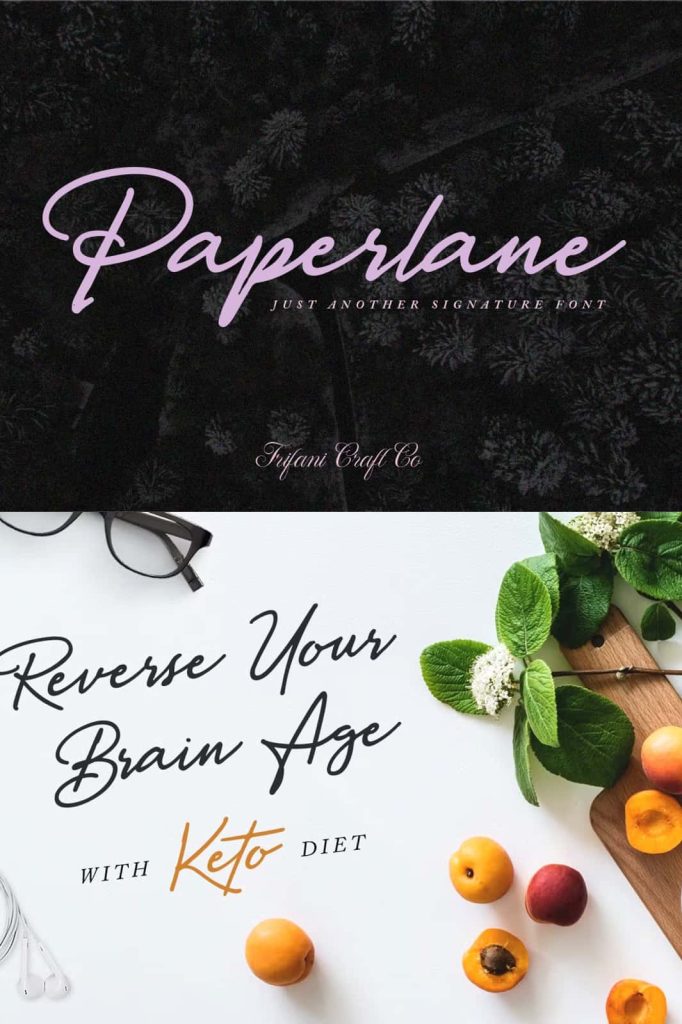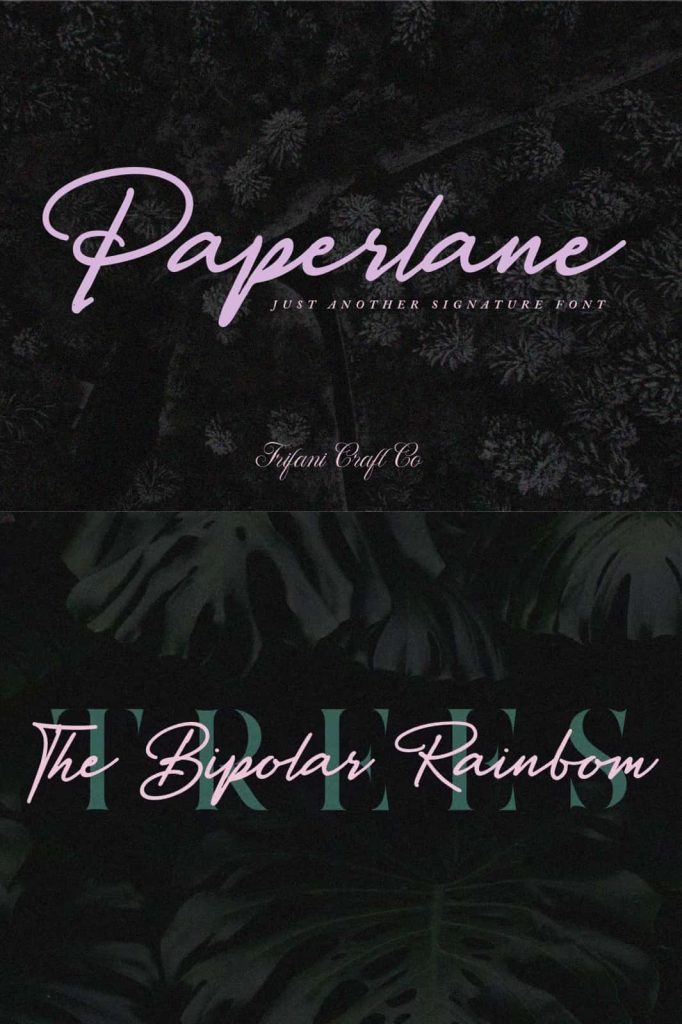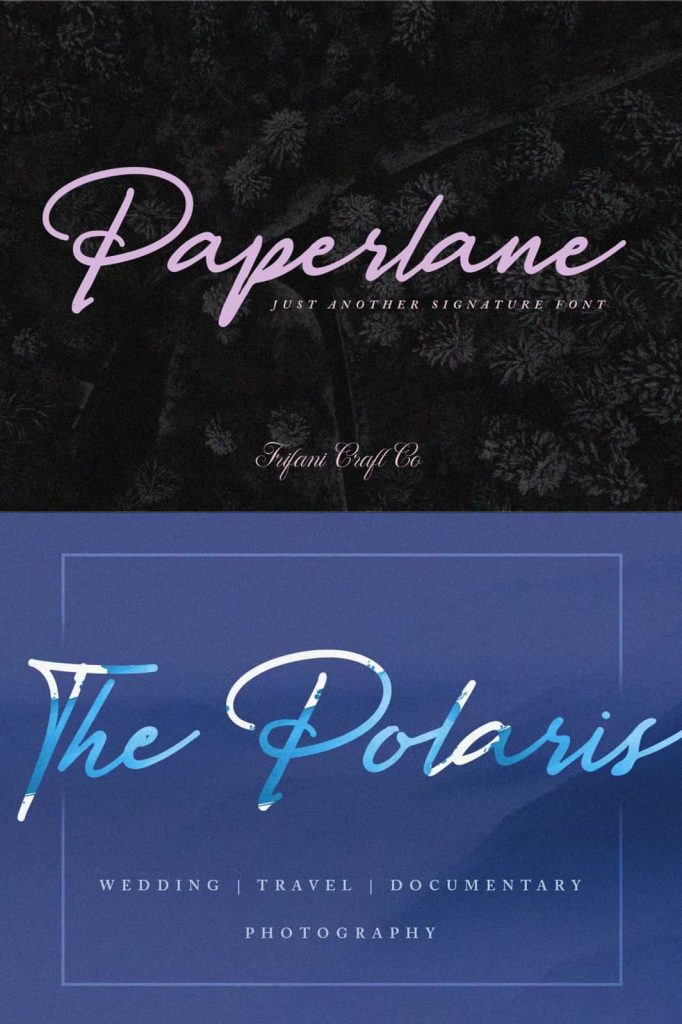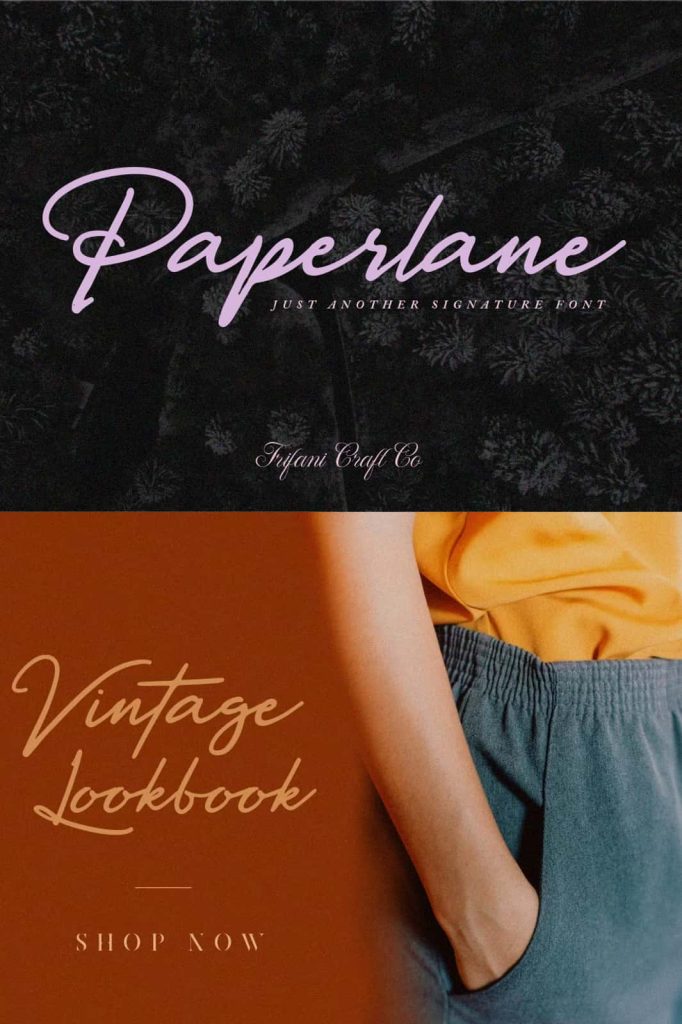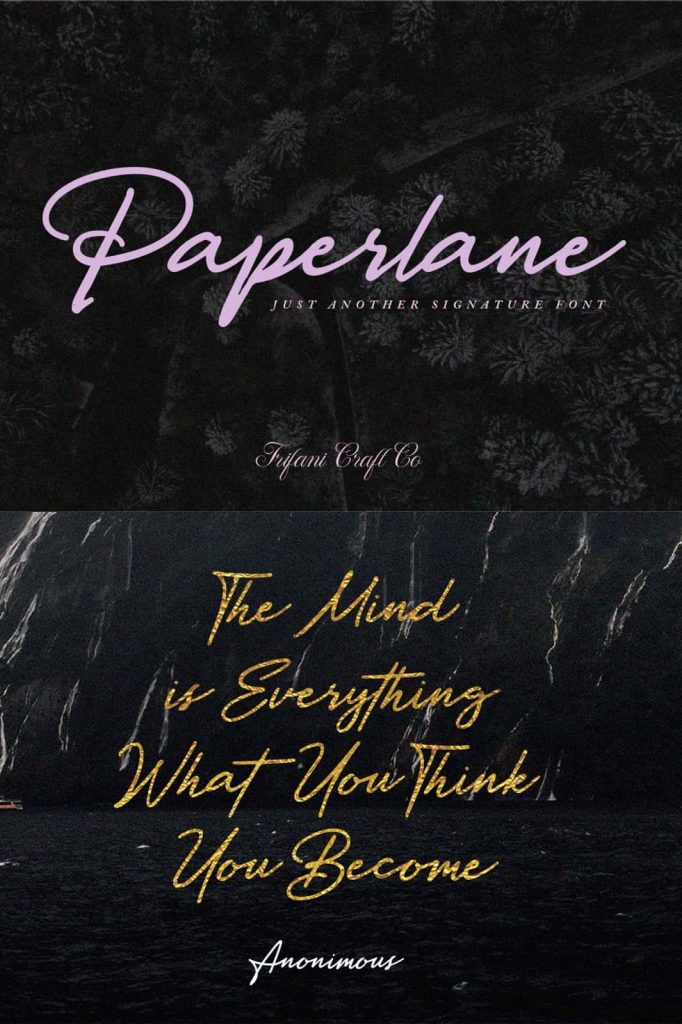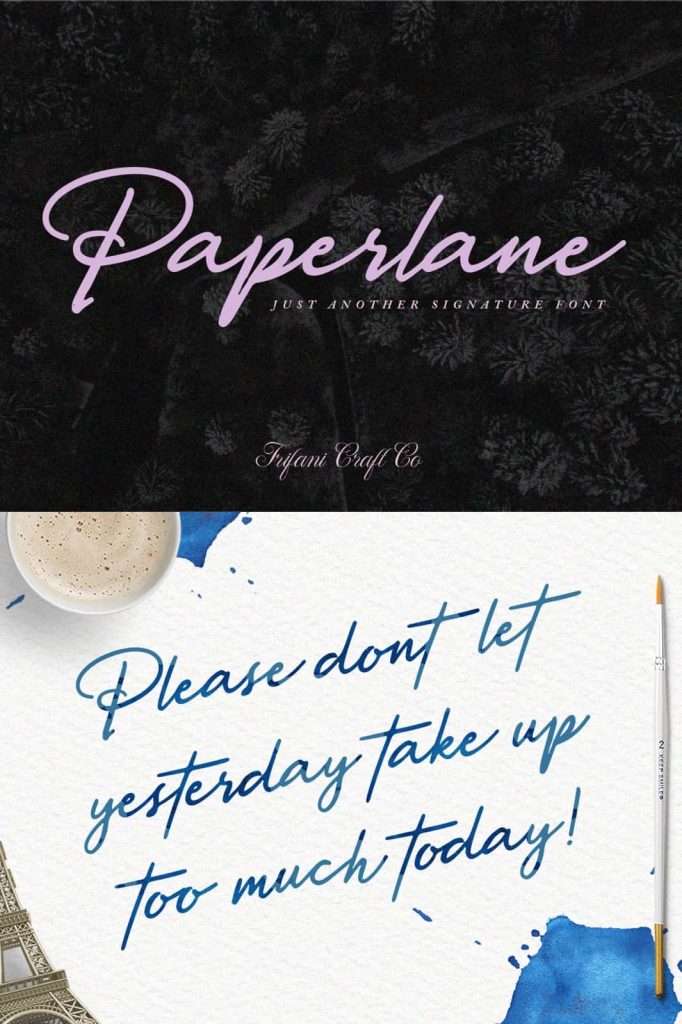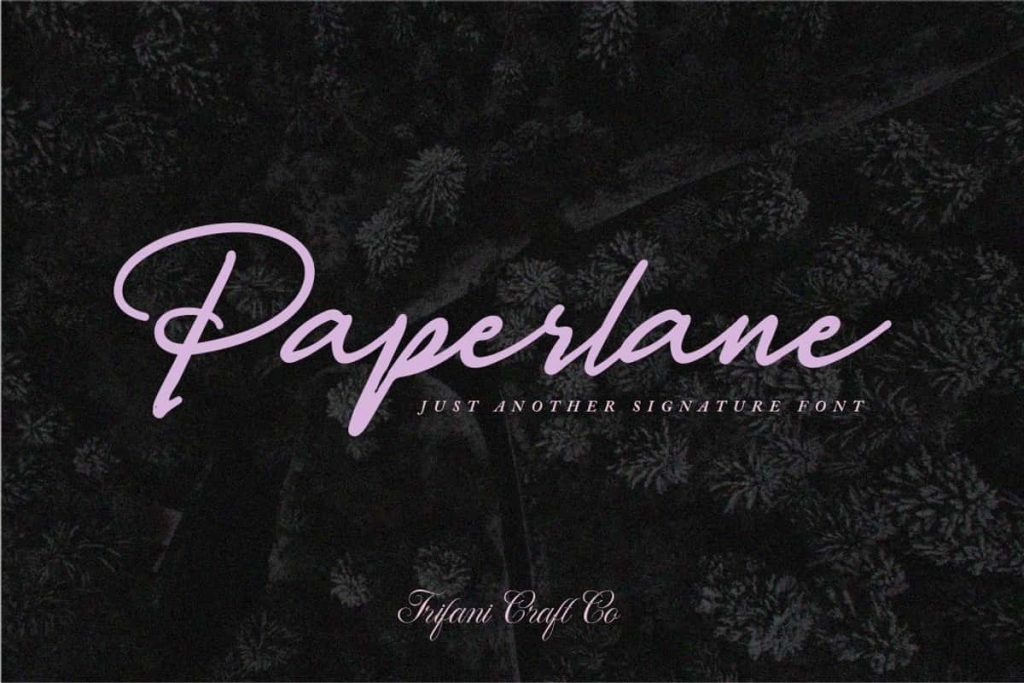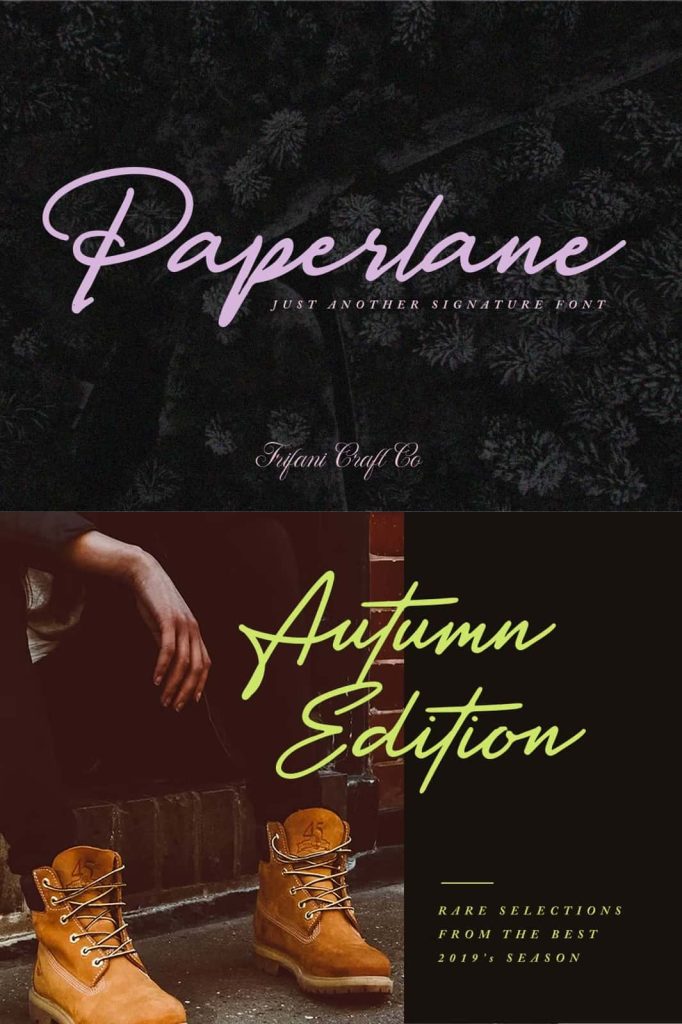
Paperlane Hand-Drawn Script Font
Paperlane is an authentic hand-drawn script font that captures the beauty and personality of natural handwriting. Designed with organic strokes and a signature-style flow, this typeface brings warmth, charm, and individuality to modern typography. Every letter reflects the subtle imperfections and expressive rhythm of handwritten text, making Paperlane an ideal choice for designers who want their work to feel personal and handcrafted.
Instead of relying on rigid digital precision, Paperlane embraces the organic movement of pen-on-paper writing. The quick dry strokes and natural letter connections recreate the feeling of genuine handwriting, allowing designers to add an intimate and creative touch to their projects. This approach makes the font feel approachable, stylish, and full of character.
An Authentic Handwritten Design
Paperlane stands out because of its authentic handwritten appearance. The font was carefully designed to replicate the natural rhythm of handwriting, preserving the subtle variations that occur when writing with a pen. These small imperfections give the letters personality and help the text feel alive.
Each character flows naturally into the next, creating smooth connections that mimic real handwritten signatures and notes. The organic shapes avoid mechanical symmetry and instead follow the natural motion of writing. This deliberate design choice allows the font to communicate warmth and authenticity in every line of text.
Designers who want typography that feels human and expressive will appreciate the handcrafted quality that Paperlane provides.
Organic Strokes with Personal Charm
The defining feature of Paperlane is its organic stroke style. The letterforms display subtle variations in thickness and movement, reflecting the pressure changes that naturally occur during handwriting. These variations create a sense of spontaneity and artistic expression.
The script maintains a relaxed flow while still remaining clear and readable. Its signature-style design gives the typeface a refined yet casual appearance, allowing it to fit comfortably into both professional and creative design environments.
This personal charm makes Paperlane an excellent option for projects that aim to connect with audiences on an emotional level.
Quick Dry Strokes that Feel Natural
Paperlane features quick dry strokes that replicate the appearance of ink drying on paper. These strokes add texture and authenticity to the lettering, making the font feel more like genuine handwriting than a digitally generated script.
The slightly imperfect edges and fluid curves enhance the handcrafted aesthetic. Instead of appearing overly polished or artificial, the font retains a natural feel that resonates with viewers who appreciate authentic design.
This attention to detail helps Paperlane stand apart from many script fonts that lack the expressive qualities of true hand lettering.
Perfect for Handwritten Quotes
Paperlane works beautifully for handwritten quotes and inspirational typography. The flowing script style creates a sense of intimacy and emotion, making messages feel more personal and meaningful.
Designers frequently use script fonts like Paperlane for social media graphics, posters, greeting cards, and digital artwork featuring motivational phrases. The organic lettering style enhances the emotional tone of the text while maintaining strong readability.
Because the font mimics authentic handwriting, it allows quotes to feel more genuine and engaging for audiences.
Ideal for Signature-Style Logos
One of the most popular uses for Paperlane is in signature-style logo design. The natural flow of the lettering resembles a handwritten signature, giving brands a sophisticated and personal visual identity.
Businesses that focus on creativity, craftsmanship, or personal service often choose script fonts like Paperlane for their branding. The font helps communicate authenticity, elegance, and individuality while maintaining a modern appearance.
Designers can easily adapt the script to create unique brand marks that feel refined yet approachable.
Great for Stylish Branding Projects
Paperlane offers excellent versatility for branding and visual identity design. Its elegant handwritten style adds personality to brand messaging while still maintaining a professional aesthetic.
The font works particularly well for lifestyle brands, boutique businesses, beauty products, fashion labels, and artisan companies. These industries often seek typography that reflects creativity and craftsmanship, making Paperlane a strong design choice.
By combining the font with clean layouts and complementary typefaces, designers can create branding systems that feel both modern and handcrafted.
Perfect for Handcrafted Products and Stationery
Paperlane also shines in product packaging and stationery design. The handwritten aesthetic fits naturally with handcrafted goods, artisanal products, and personalized stationery collections.
Designers can use the font for labels, product tags, invitations, wedding stationery, notebooks, and greeting cards. Its organic style enhances the handcrafted feel of these products and helps create a stronger emotional connection with customers.
In packaging design, the script adds a sense of authenticity that reinforces the value of handmade or boutique items.
A Script Font Designed for Creative Expression
Paperlane delivers more than just decorative lettering. It provides a versatile tool that allows designers to express personality, creativity, and authenticity through typography. The combination of organic strokes, natural flow, and signature-style elegance makes the font suitable for many design applications.
Whether used for quotes, branding, logos, packaging, or stationery, Paperlane consistently brings warmth and individuality to visual communication. Its carefully crafted letterforms preserve the beauty of handwritten text while offering the convenience and flexibility of a digital font.
For designers who want to add genuine character and handcrafted charm to their work, Paperlane stands out as a compelling and expressive script typeface.